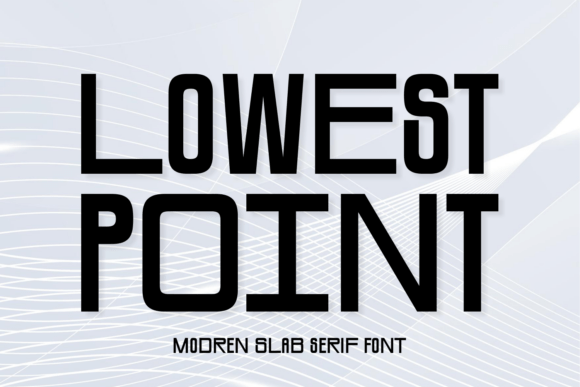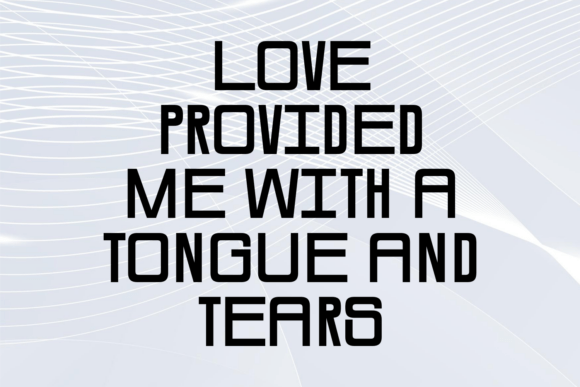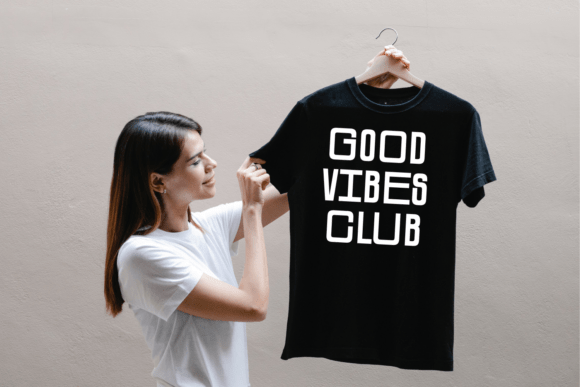
Lowest Point Font
About the Lowest Point Font
We are excited to introduce Lowest Point Font, a must-have typeface for any serious designer. Immerse yourself in the distinct personality of “Lowest Point Slab Serif Fonts”. Beyond just being applicable to book covers and branding, these fonts add a special touch to your craft projects and are perfect for Father’s Day designs or sending heartfelt messages through greeting cards. Whether you’re looking to deck your holiday projects with a unique touch or casting an unforgettable impression with your logo, this logotype font from 7ntypes offers unmatched versatility. From magazine layouts, stirring quotes, to multilingual needs, “Lowest Point” stands tall in versatility. Add a vivid impact to your posters, promotions, and product labels. It’s not just fonts, it’s a tool to brighten up your school projects, enhance your silhouette sketches, or add a cool touch to your T-shirt designs. Experience the wide-ranging adaptability of “Lowest Point Slab Serif Fonts”.
Lowest Point Font Usage Examples
Lowest Point Font Example